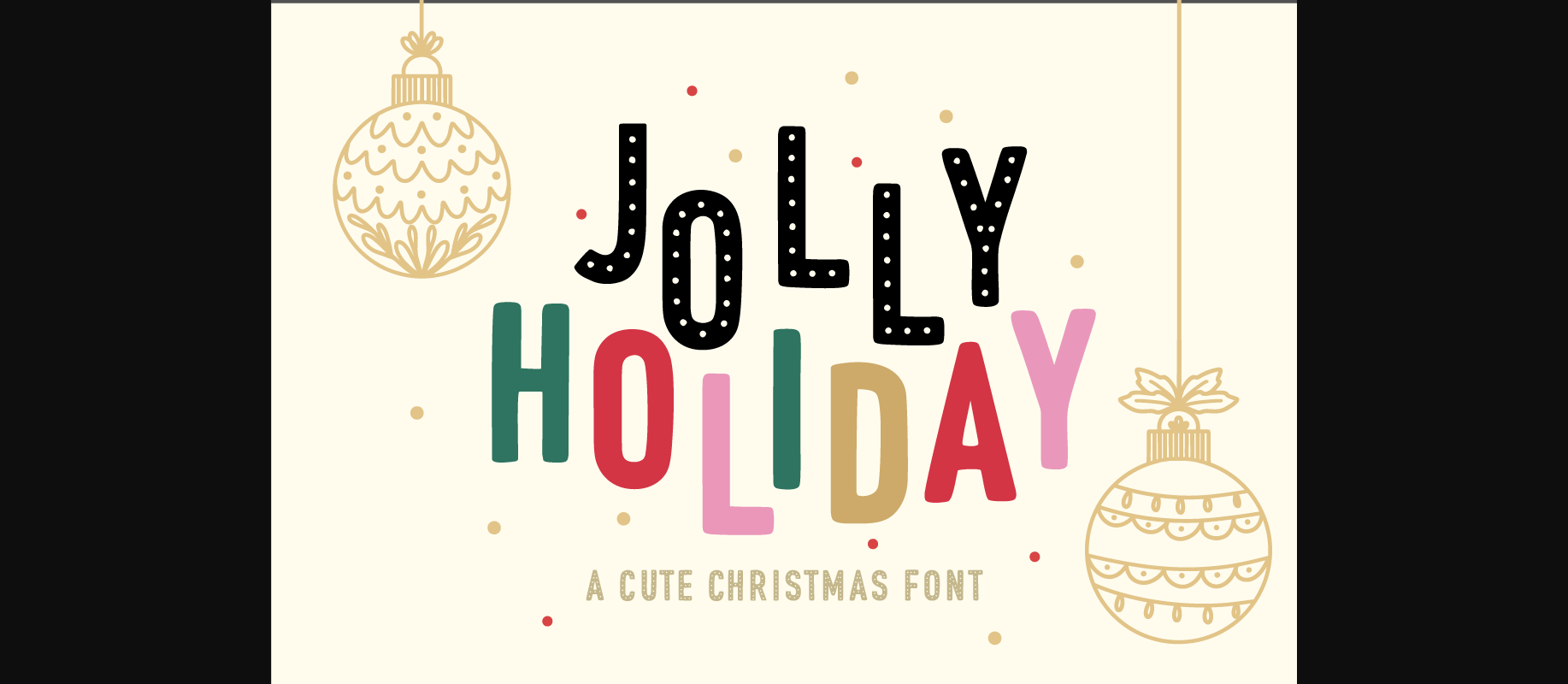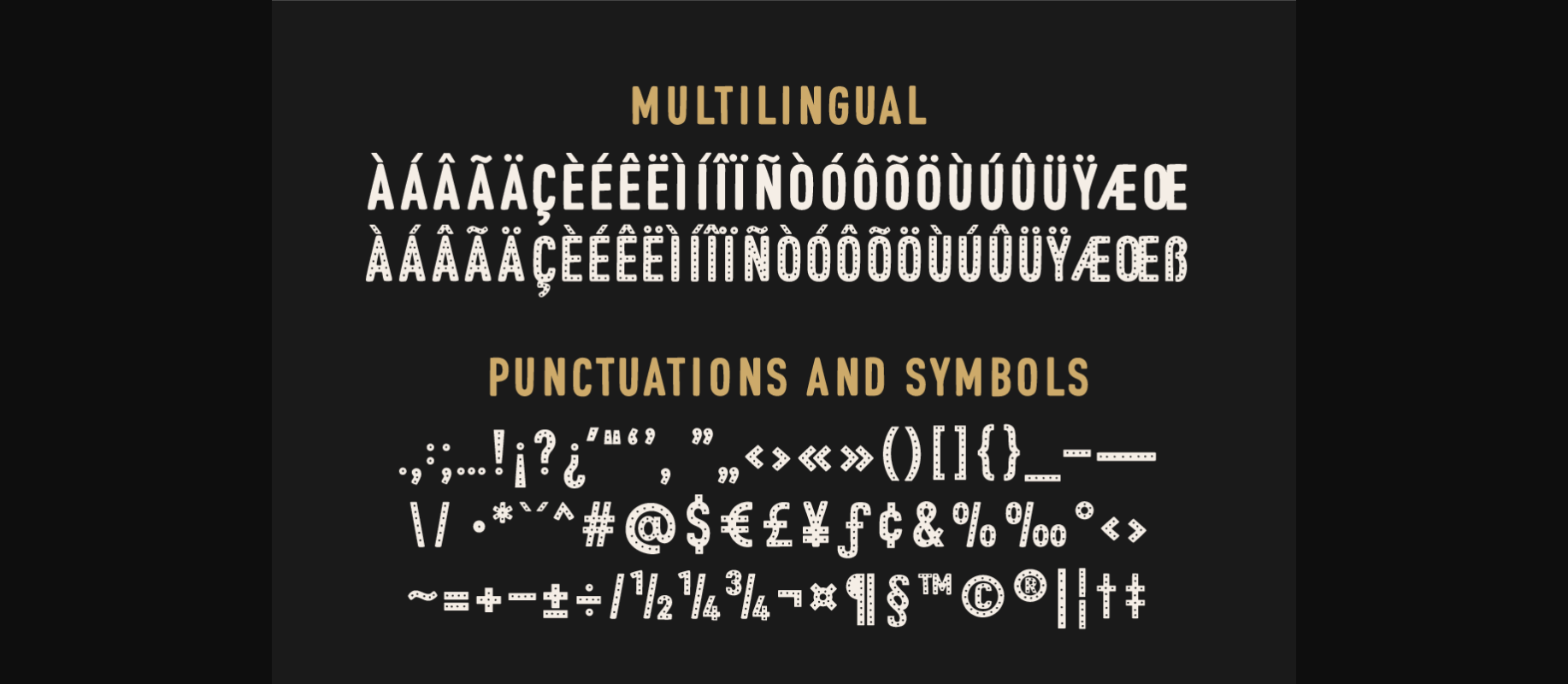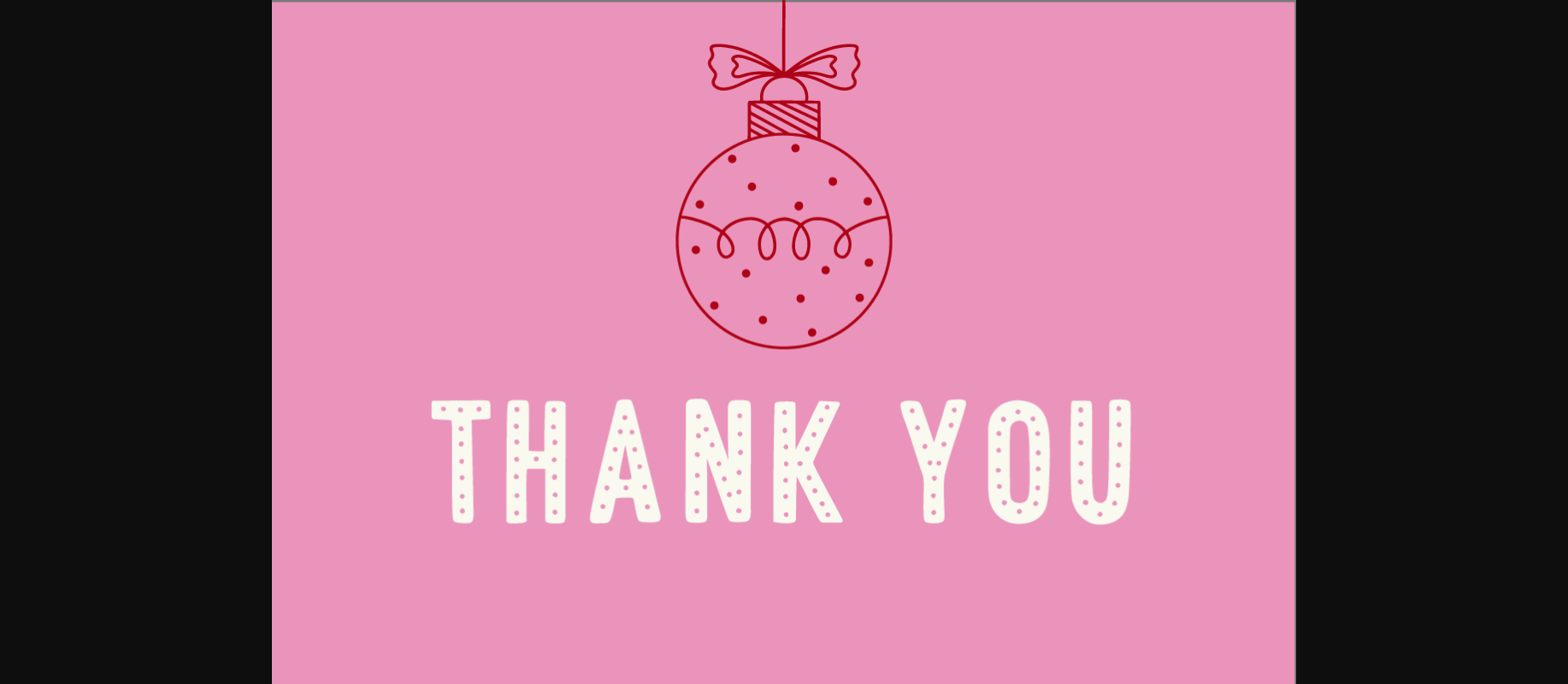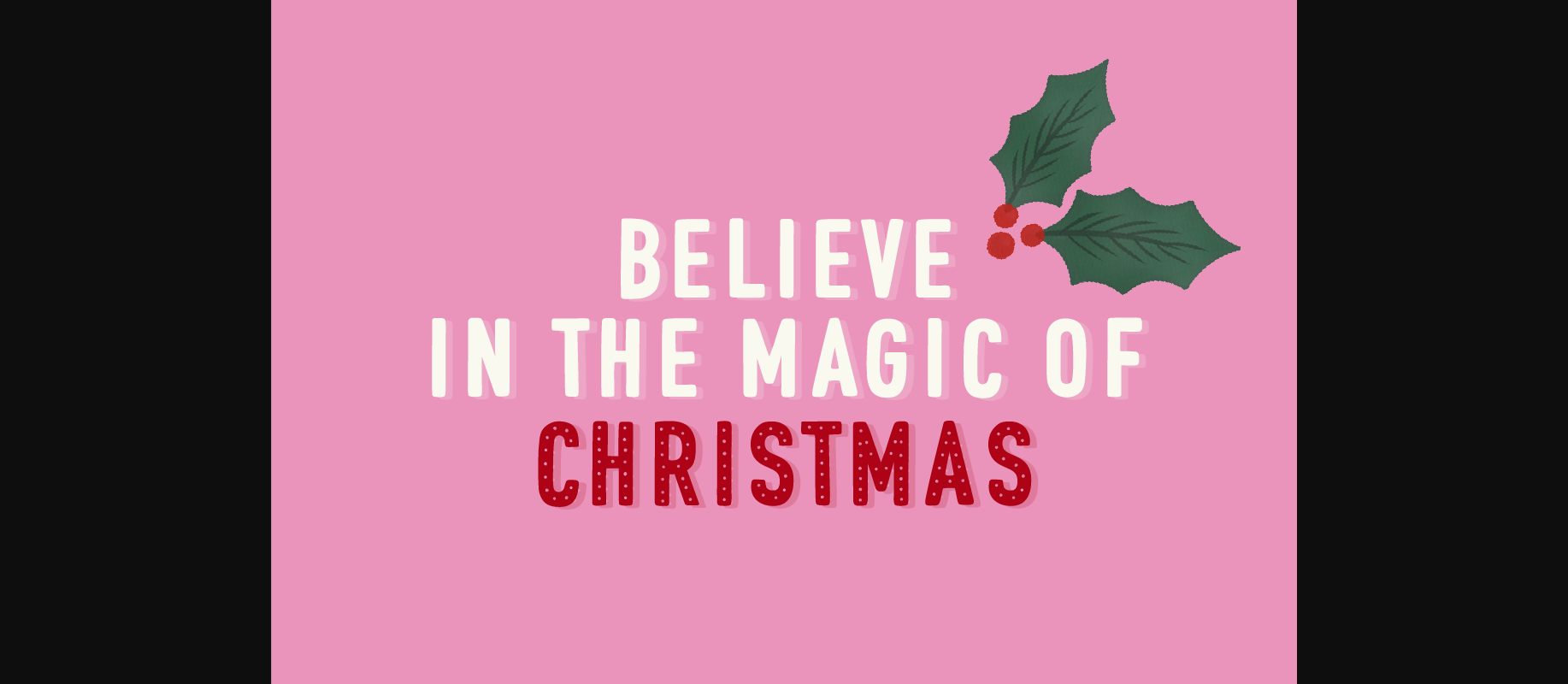
About Jolly Holiday Font
Jolly Holiday is a cute Christmas font. Perfect for circuit projects, shirts, retro designs, Christmas invitations, mugs, stickers, playful quotes, creating posters, logos, greeting cards, packaging, decorating the illustration and so much more!